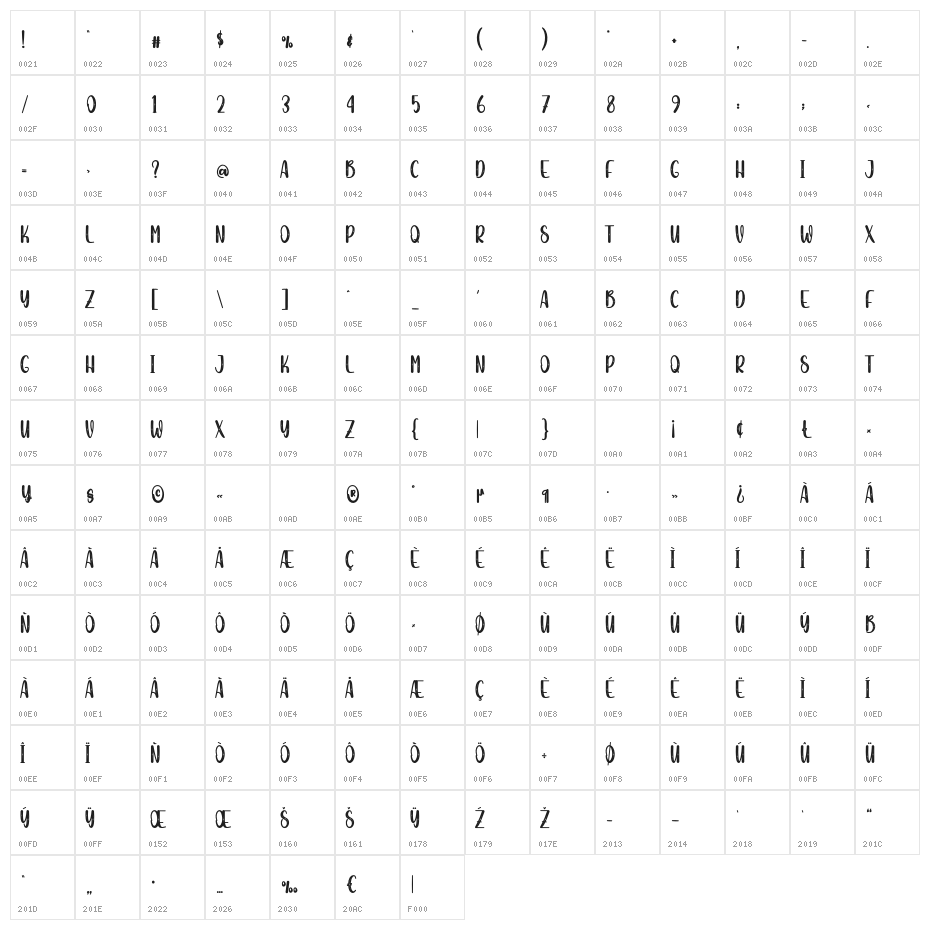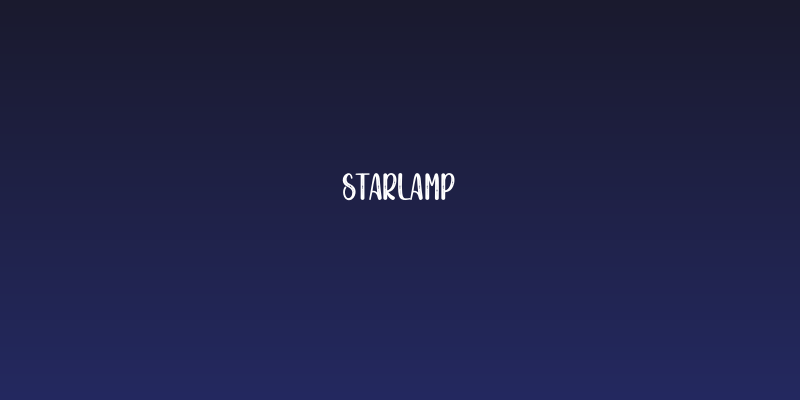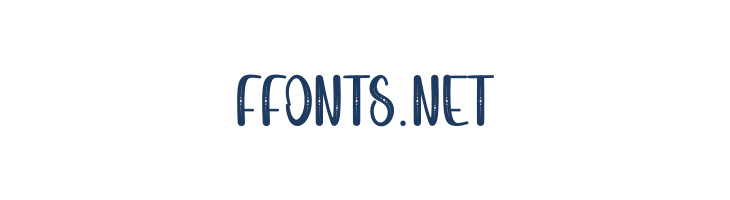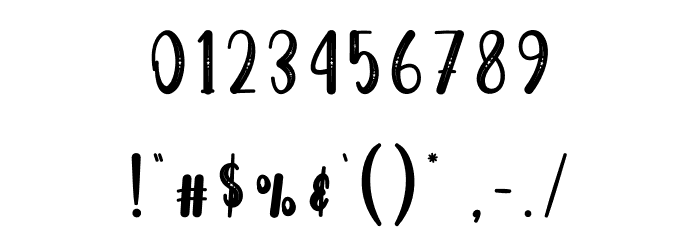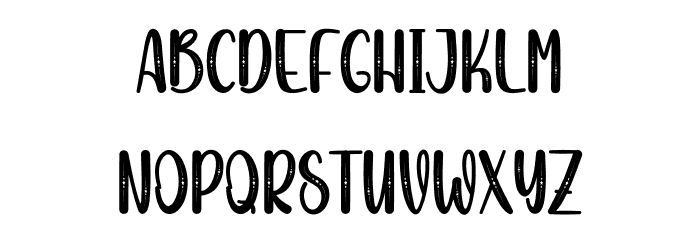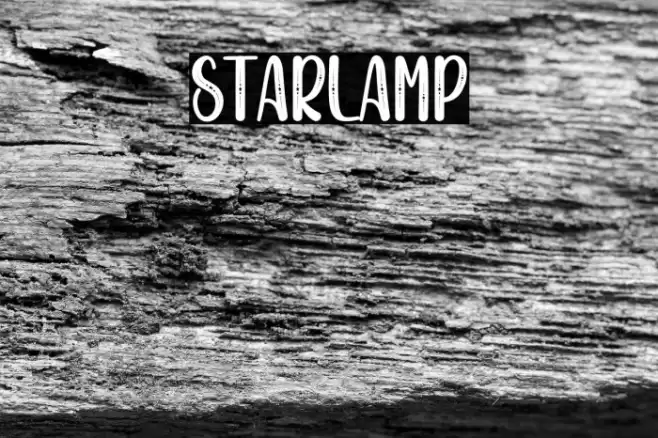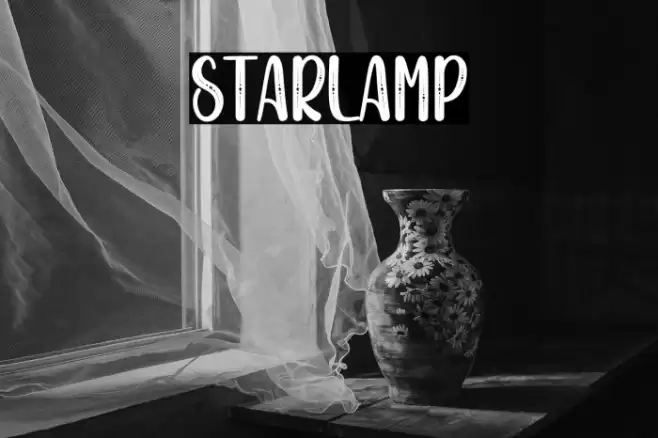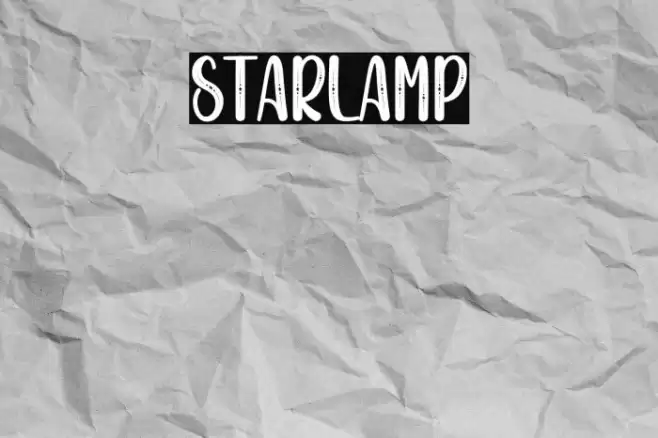
Starlamp Font
Starlamp Description
This font features a playful and artistic style with a hand-drawn appearance. The letters are bold and rounded, with a slightly uneven texture that gives them a whimsical and informal feel. The strokes are consistent in width, providing a uniform look across all characters. The font includes both uppercase and lowercase letters, numbers, and a variety of special characters, making it versatile for different design needs. Its unique style is perfect for projects that require a touch of creativity and fun.
| Proposed Projects | Ideal for children's books, greeting cards, playful branding, and creative posters. |